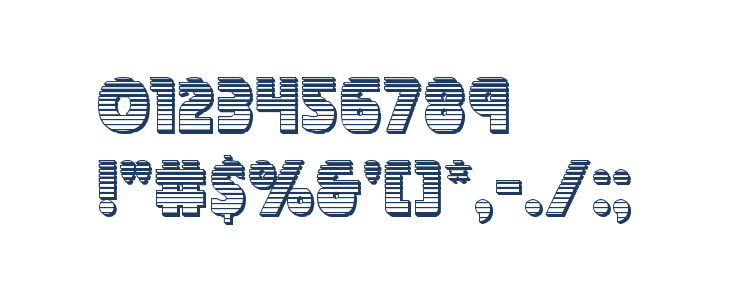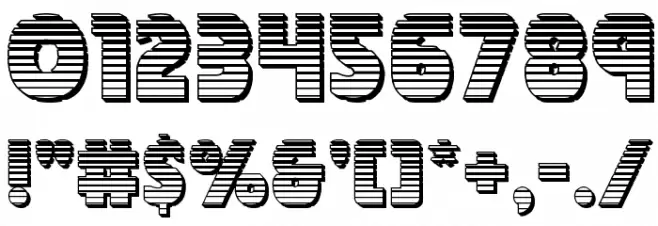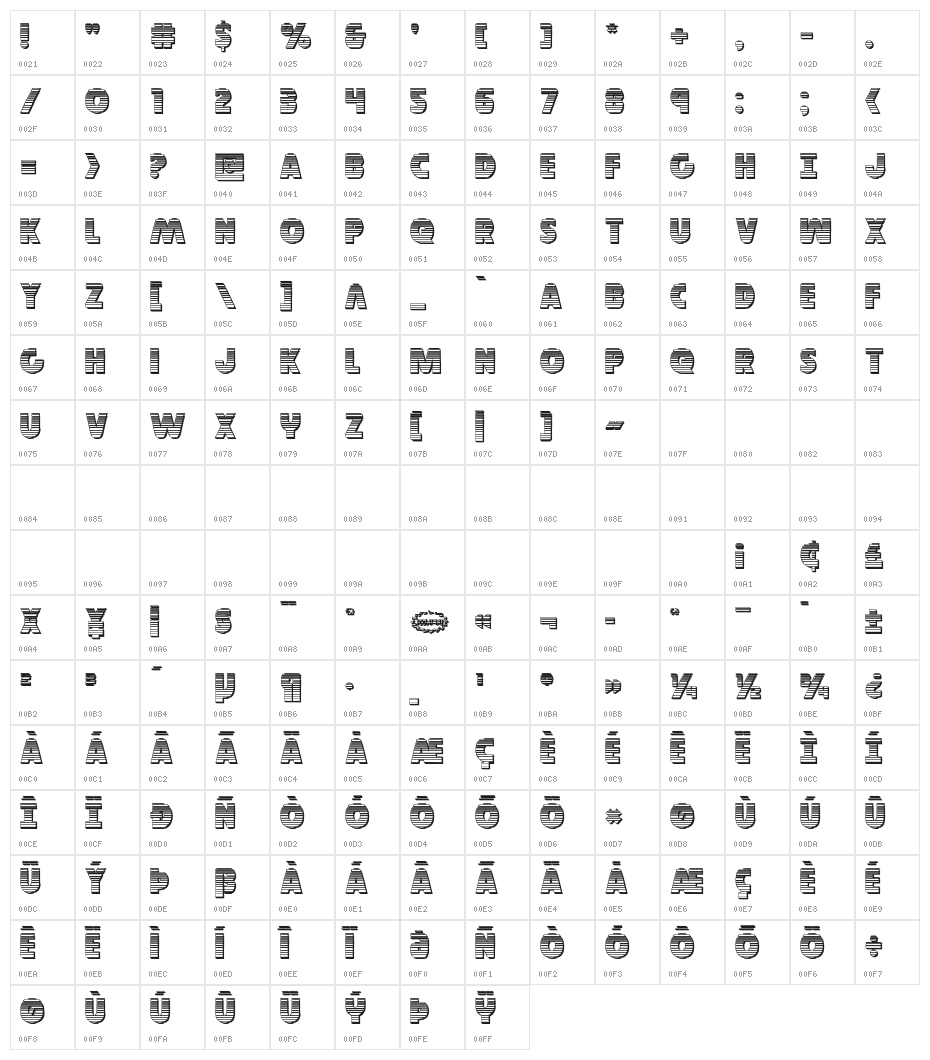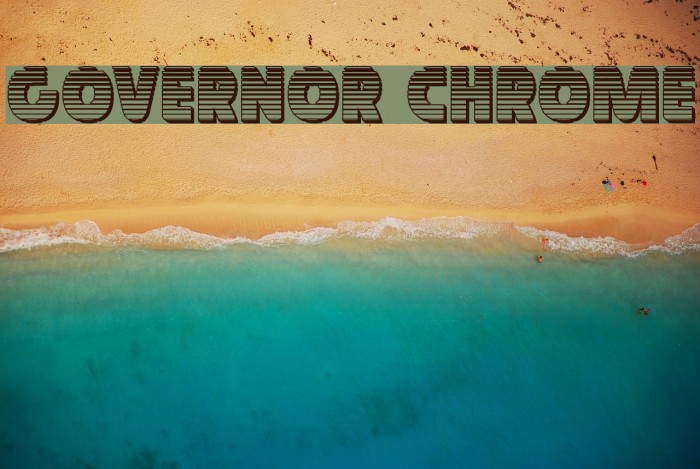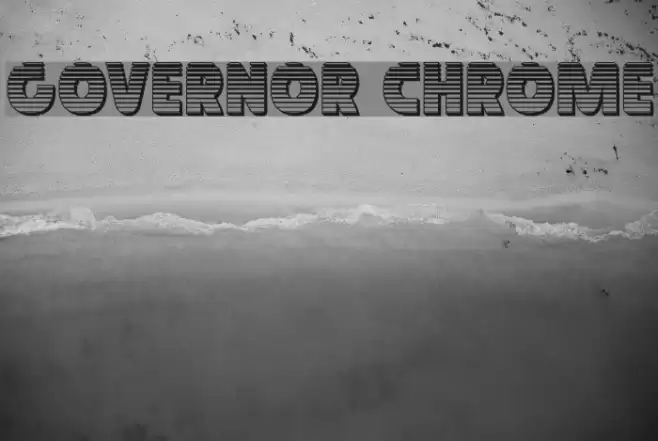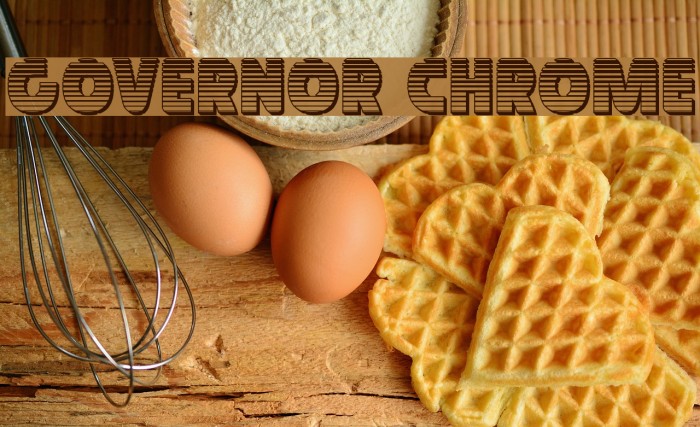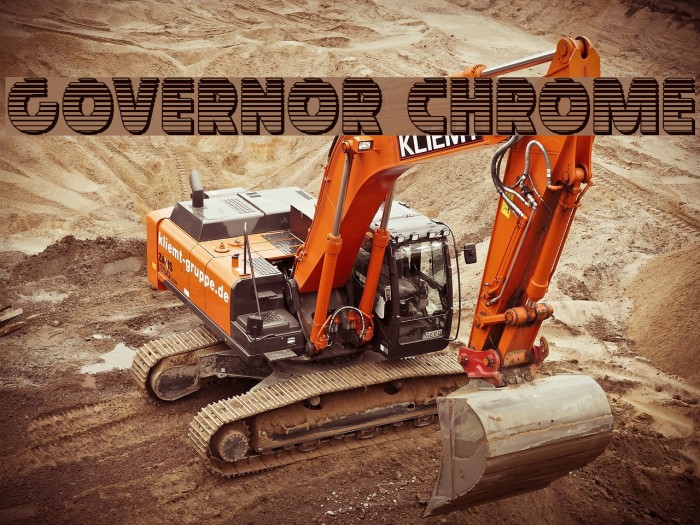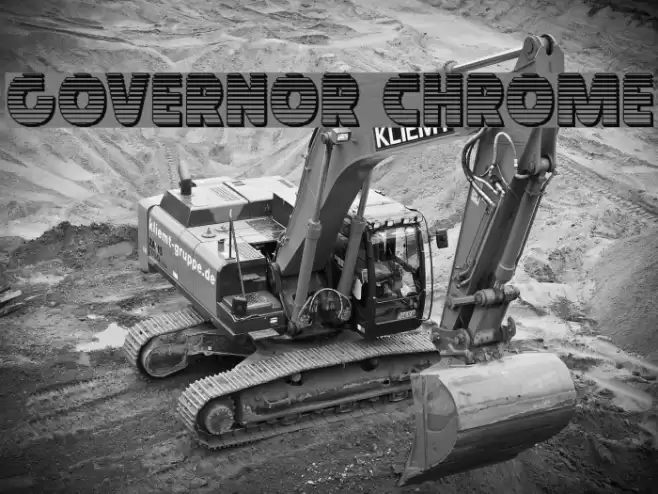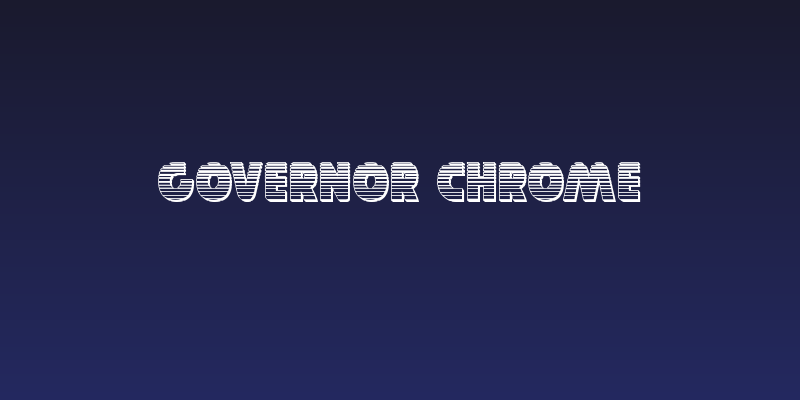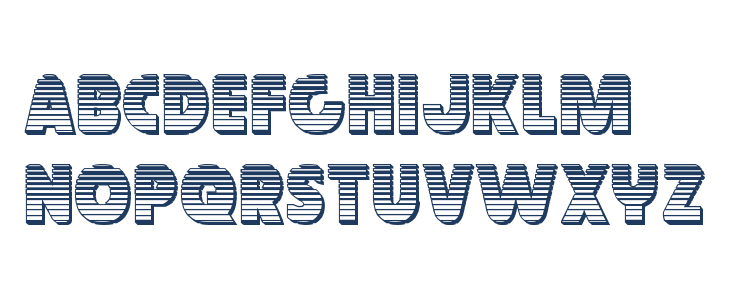
Governor Chrome Font
Governor Chrome Description
This font features a bold, decorative style with a distinctive striped pattern running horizontally across each character. The uppercase and lowercase letters maintain a consistent width, creating a uniform appearance. The numbers and special characters share the same striped design, enhancing the cohesive look. The font's boldness and unique pattern make it stand out, ideal for eye-catching designs. The characters are well-spaced, ensuring readability while maintaining their decorative appeal. This font is perfect for projects that require a modern and striking visual impact.
| Proposed Projects | Ideal for posters, headlines, branding, and any design requiring a bold statement. |